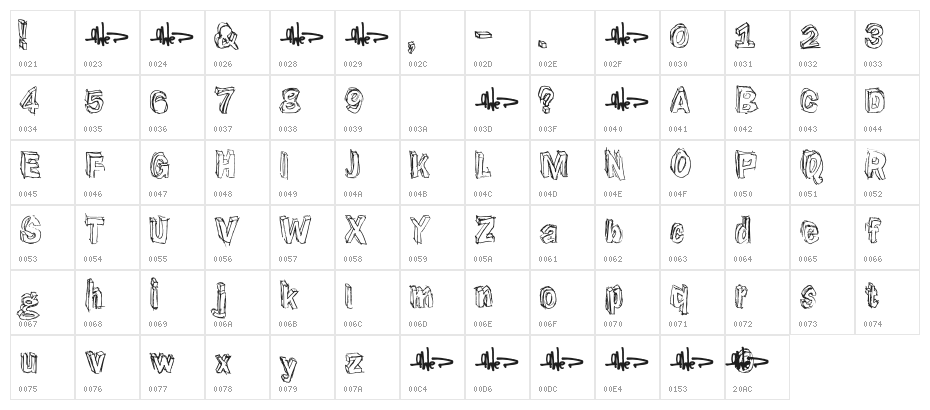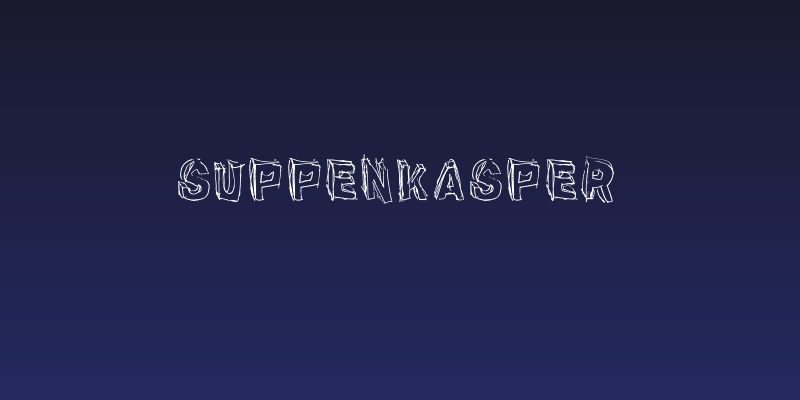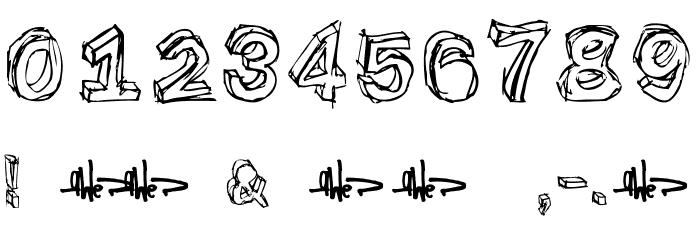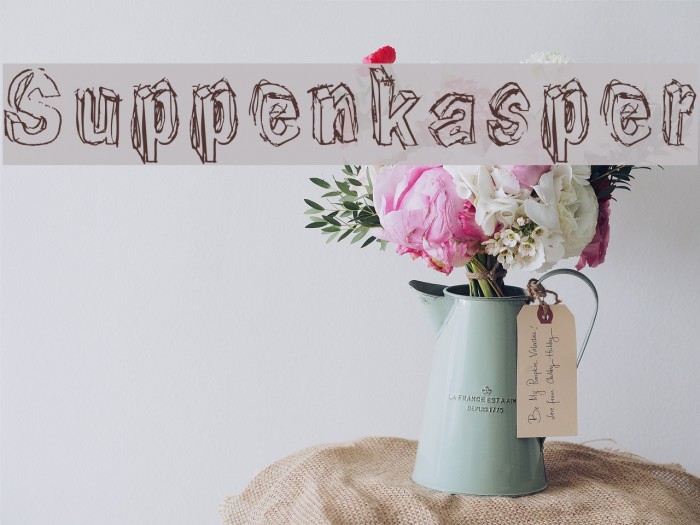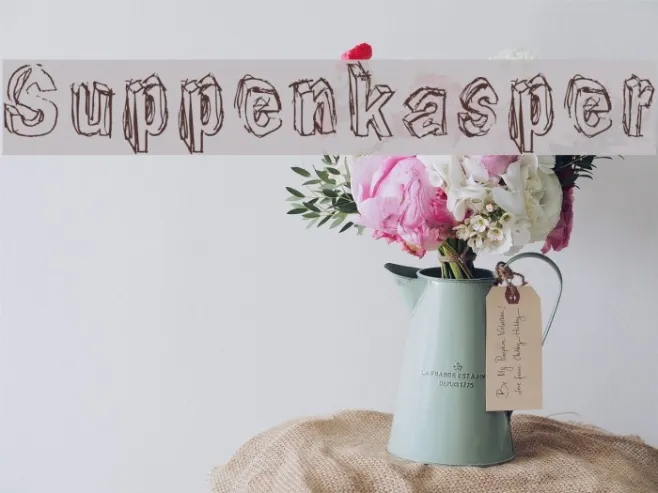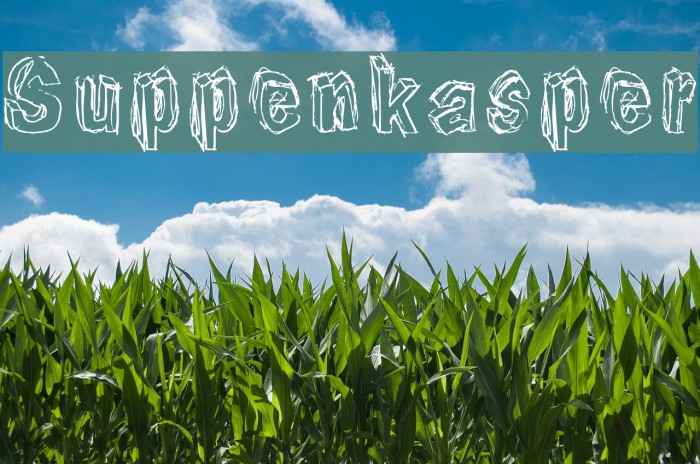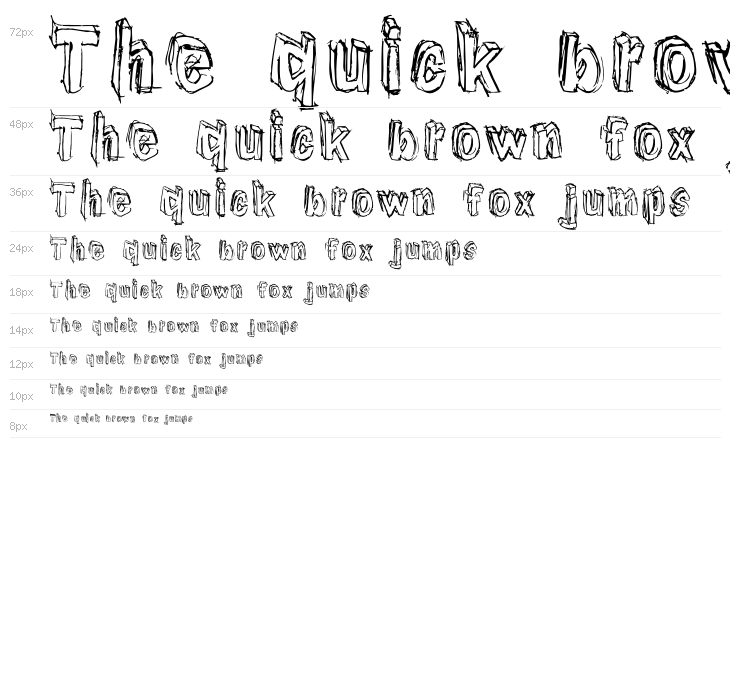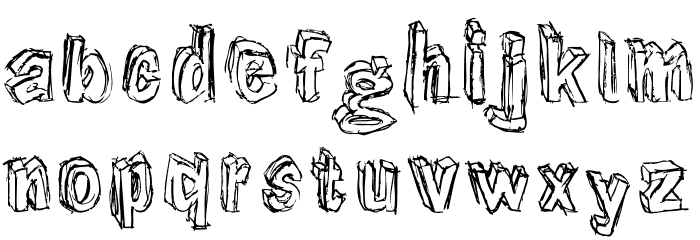
Suppenkasper Font
Suppenkasper Description
This font exhibits a playful and sketch-like appearance, characterized by its hand-drawn style. Each letter is outlined with irregular, jagged lines, giving it a rough and artistic feel. The uppercase and lowercase letters maintain a consistent style, with a slightly exaggerated and whimsical form. Numbers and special characters follow the same aesthetic, ensuring a cohesive look across all elements. The font's unique, doodle-like quality makes it stand out, offering a creative and informal vibe. It's perfect for projects that require a touch of personality and artistic flair.
| Overall Style | Artistic, Playful |
| Use Case | Headlines, Creative projects, Informal designs |
| Proposed Projects | Ideal for children's books, creative posters, art projects, and informal branding. |